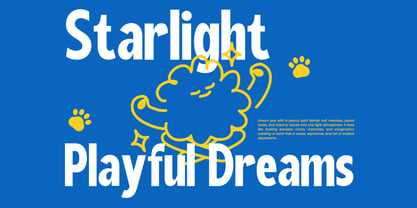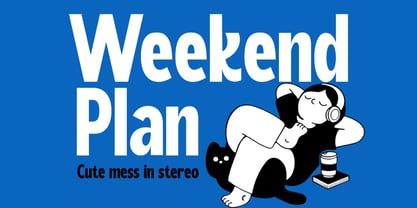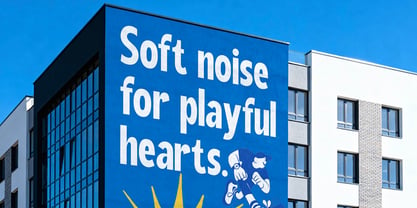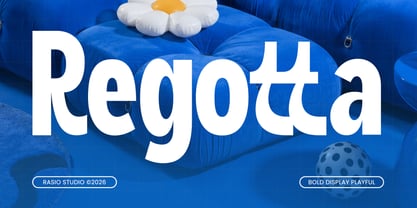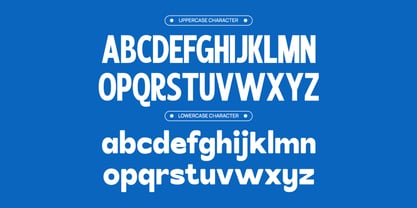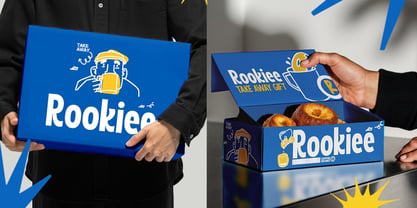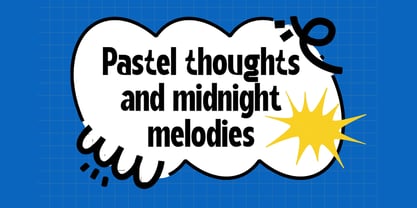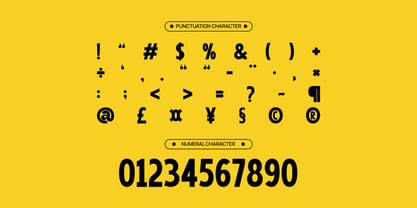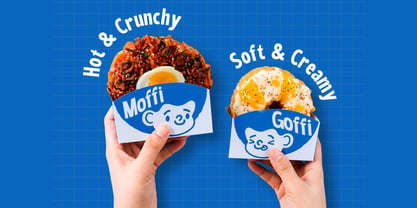
Regotta
Regotta is a bold playful display font featuring rounded shapes, chunky letterforms, and cheerful geometric curves that create a fun and energetic visual personality. Designed with a soft modern structure and strong readability, this typeface brings a vibrant and friendly atmosphere to creative branding, packaging, posters, and digital content.
Relevance & Use Cases is highly relevant for playful branding, children-themed designs, snack packaging, toy branding, social media graphics, creative posters, merchandise, event promotions, and modern advertising visuals. Its bold rounded appearance helps create a warm, approachable, and energetic identity, making it effective for projects that require strong visual impact with a fun and contemporary personality.